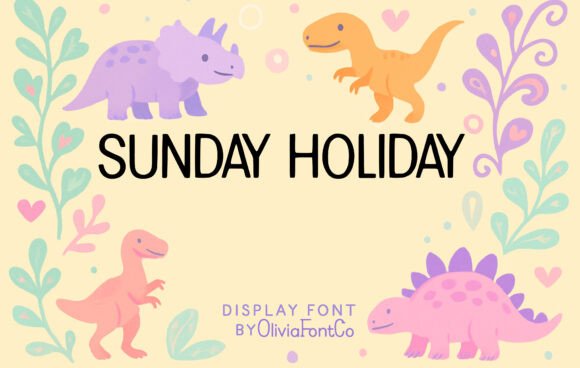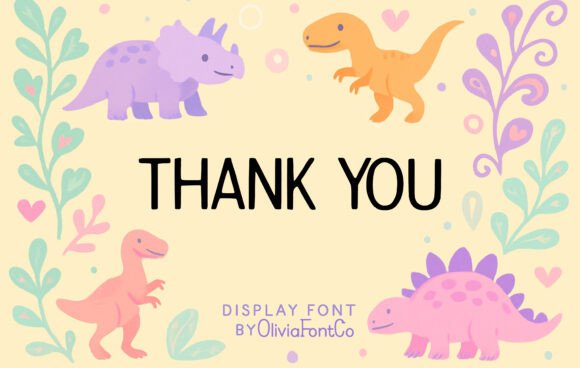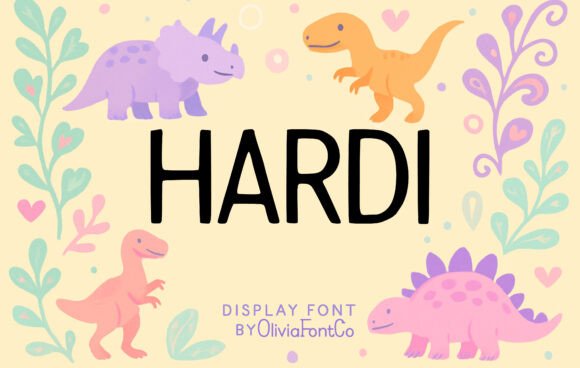
Discover the Versatility of Hardi Font: Elevate Your Designs to New Heights
In the world of typography, a font can make or break a design. It’s the foundation upon which your creative ideas are built, and it can either elevate or detract from the overall aesthetic. If you’re on the hunt for a font that can take your designs to the next level, look no further than Hardi Font. This versatile and legible font is designed to be a true favorite among designers and crafters, and for good reason.
Legibility and Versatility
One of the standout features of Hardi Font is its exceptional legibility. Whether you’re using it as a title or body text, this font is easy on the eyes and looks great in a variety of contexts. Its clean lines and classic design make it a versatile choice for a wide range of projects, from magazine headlines to t-shirts, social media graphics, branding materials, and more.
Whether you’re working on a editorial design, a marketing campaign, or a personal project, Hardi Font is the perfect choice. Its legibility ensures that your message gets across clearly, while its stylish design adds a touch of sophistication and elegance. This font is perfect for designers who want to create professional-looking designs without sacrificing style.
Hardi Font is a font that can be used in countless ways. Here are just a few ideas to get you started:
- Magazine Headlines: Use Hardi Font to create eye-catching headlines that grab readers’ attention.
- T-Shirts and Apparel: Add a stylish touch to your t-shirt designs with this versatile font.
- Social Media Graphics: Create engaging social media graphics that stand out from the crowd.
- Branding and Identity: Use Hardi Font to create a consistent brand identity that exudes professionalism and style.
- Wedding Invitations and Cards: Add a touch of elegance to your wedding invitations, cards, and other stationery with this beautiful font.
Why Choose Hardi Font?
So why choose Hardi Font over other fonts on the market? Here are just a few reasons:
- Unique Design: Hardi Font has a unique design that sets it apart from other fonts.
- Exceptional Legibility: This font is designed to be easy to read, even at small sizes.
- Versatility: Use Hardi Font for a wide range of projects, from print to digital.
- High-Quality: This font is designed to deliver high-quality results, every time.
Tips for Using Hardi Font
To get the most out of Hardi Font, here are a few tips to keep in mind:
- Experiment with Different Sizes: Hardi Font looks great at a variety of sizes, so don’t be afraid to experiment.
- Pair it with Other Fonts: Try pairing Hardi Font with other fonts to create a unique and stylish design.
- Use it for Body Text: Hardi Font is legible enough to use for body text, making it a great choice for longer designs.
In conclusion, Hardi Font is a versatile and stylish font that’s perfect for designers and crafters looking to elevate their designs to new heights. With its exceptional legibility, unique design, and endless possibilities for use, this font is sure to become a favorite in your design arsenal. So why wait? Give Hardi Font a try today and see the difference it can make in your designs.